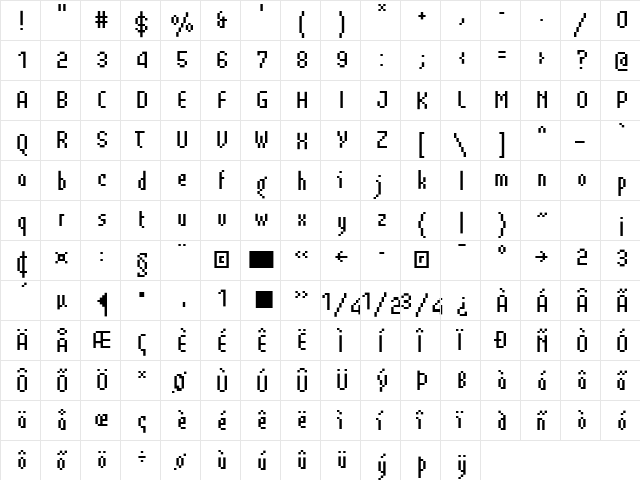
LomoCopy LT Std Zigg Regular
| Foundry | Linotype Library GmbH |
| Designer | Fidel Peugeot |
Design Context for LomoCopy LT Std Zigg Typeface
LomoCopy LT Std Zigg takes a measured approach to typography — its balanced proportions and neutral character make it a reliable workhorse for both digital and print work. Its slender proportions lend an understated elegance to any composition.